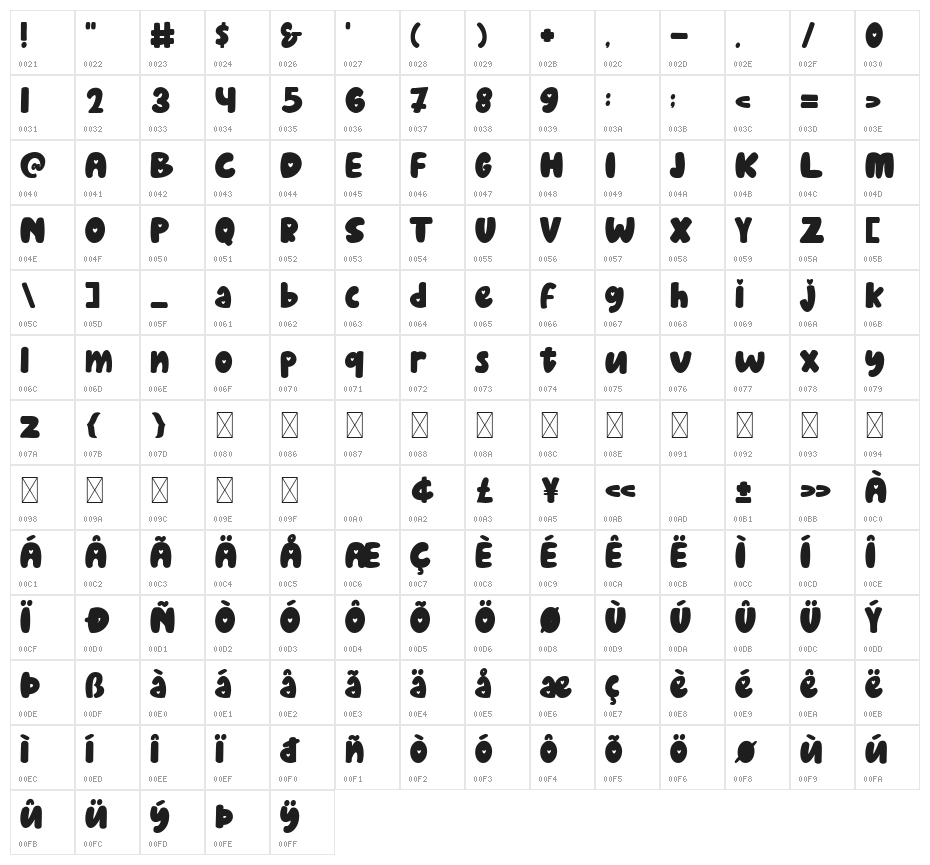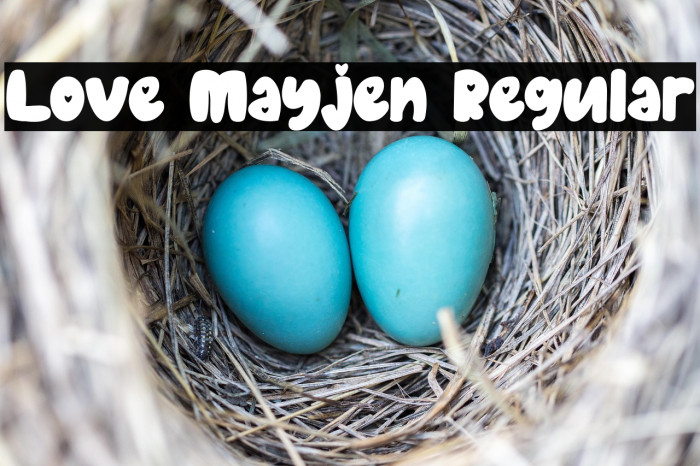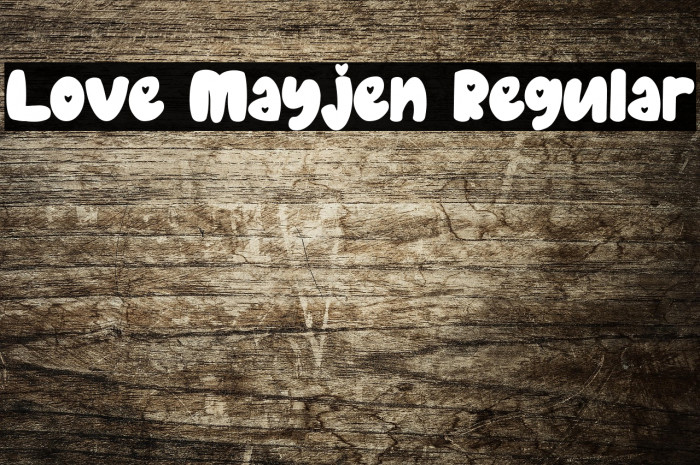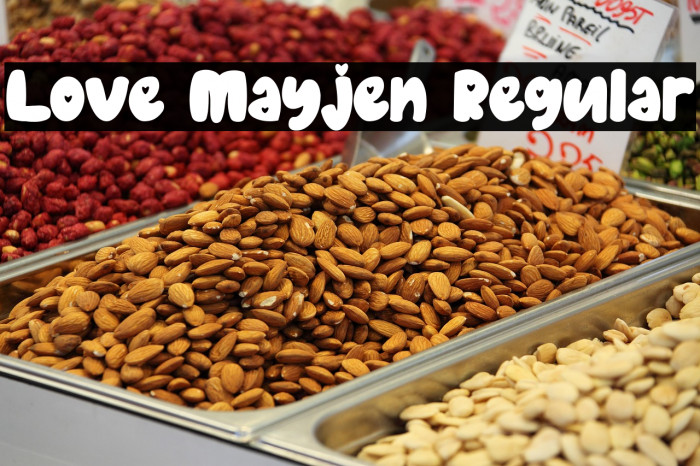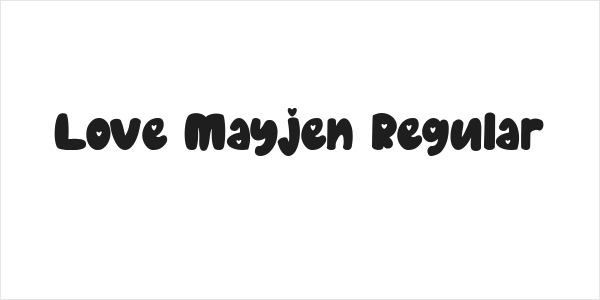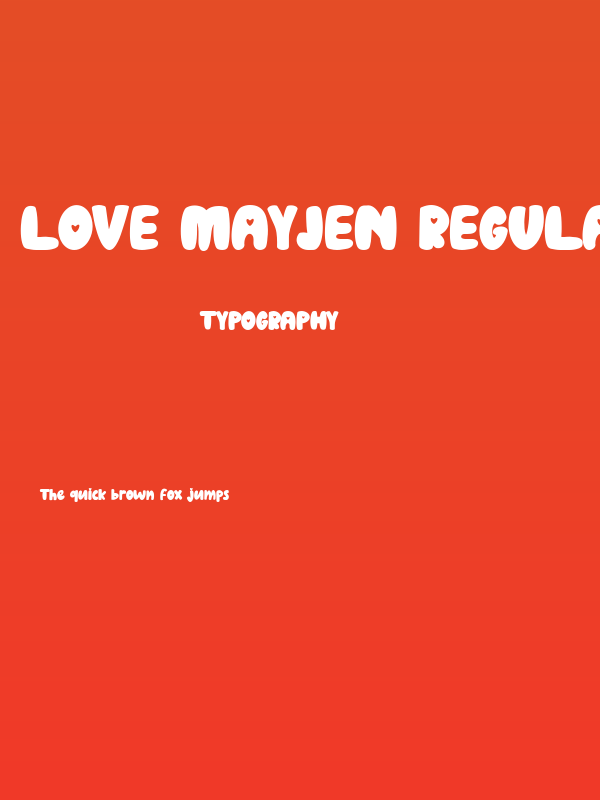
Love Mayjen Regular Font
Love Mayjen Regular Description
This playful and bold font features rounded, bubbly characters with a whimsical touch. Each letter is crafted with a thick, uniform stroke, creating a sense of fun and friendliness. The inclusion of small heart shapes within some letters adds a unique and charming detail, making it stand out. The numbers and special characters maintain the same playful style, ensuring consistency throughout. This font is perfect for projects that require a lighthearted and approachable feel.
| Proposed Projects | Ideal for children's books, playful branding, greeting cards, and party invitations. |